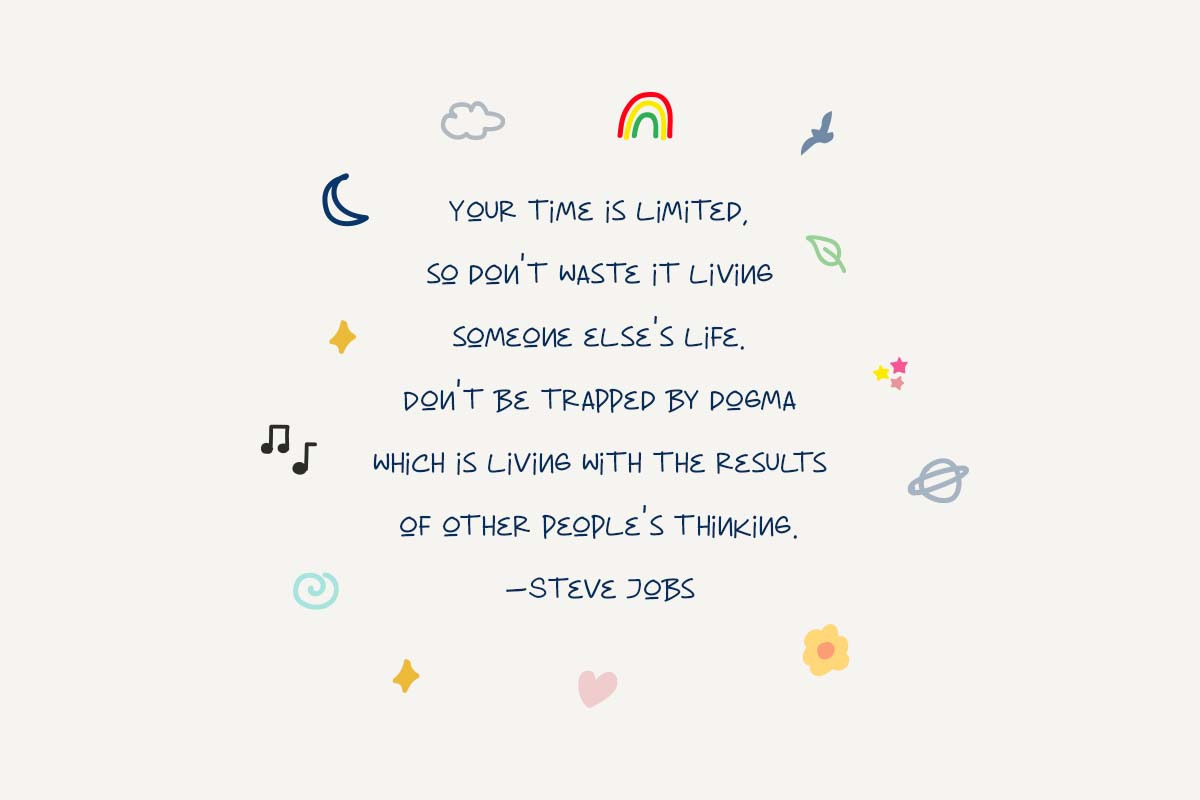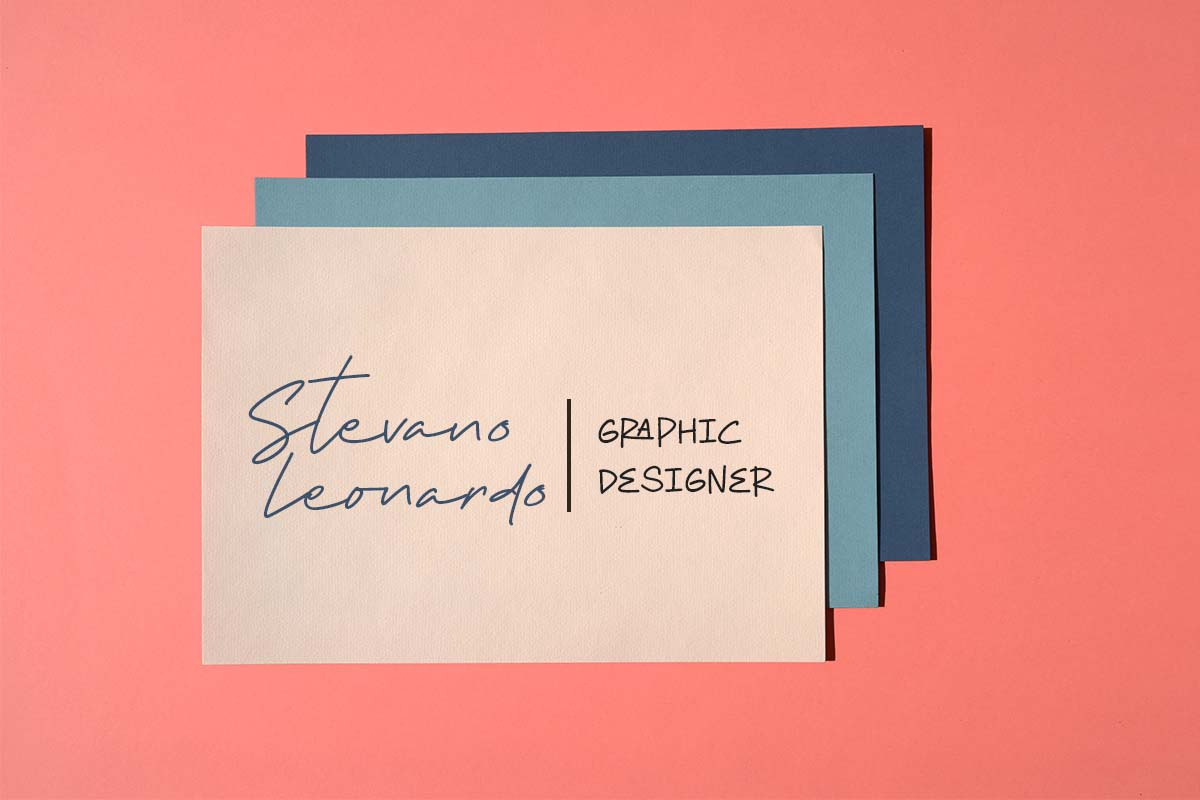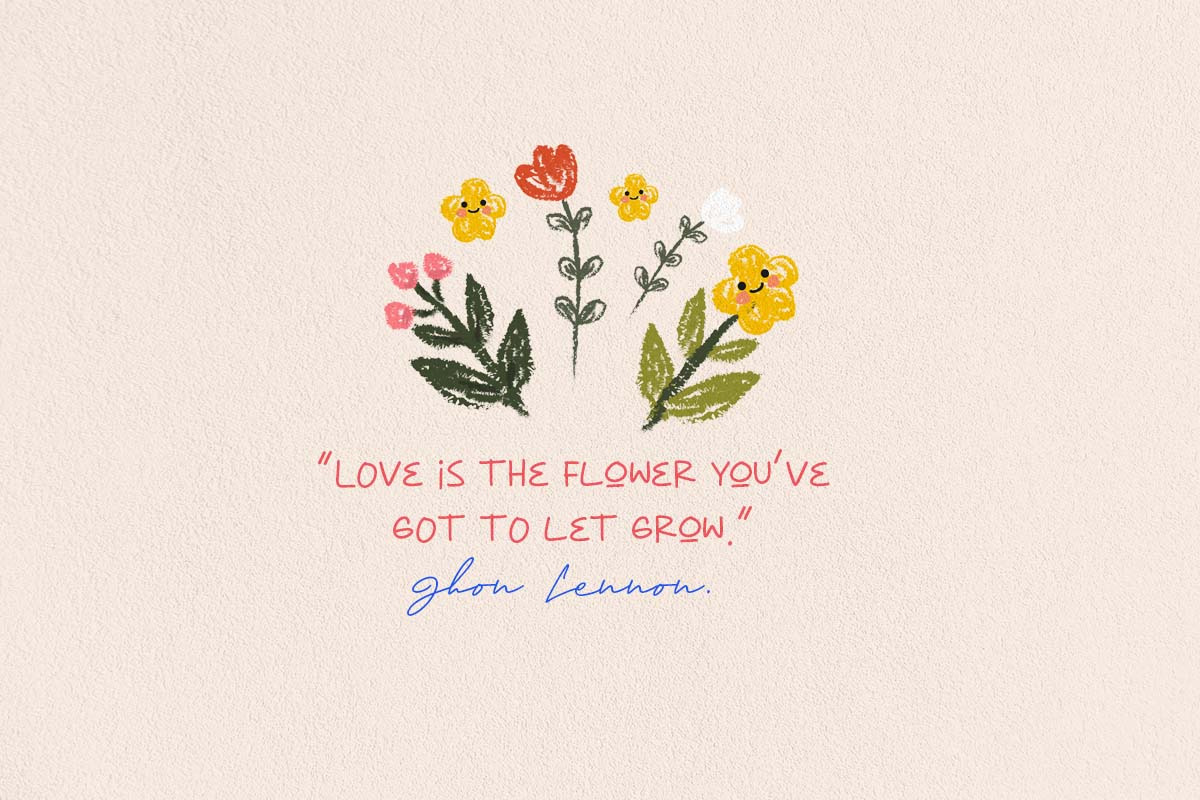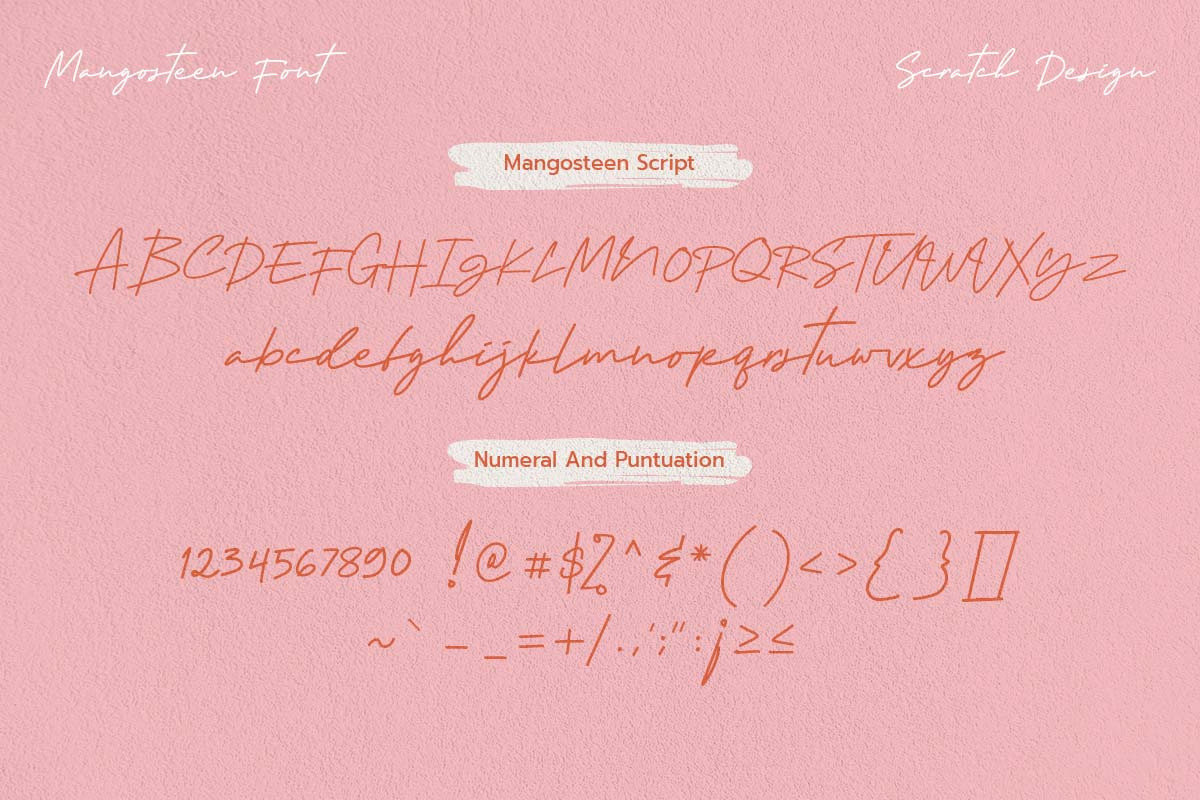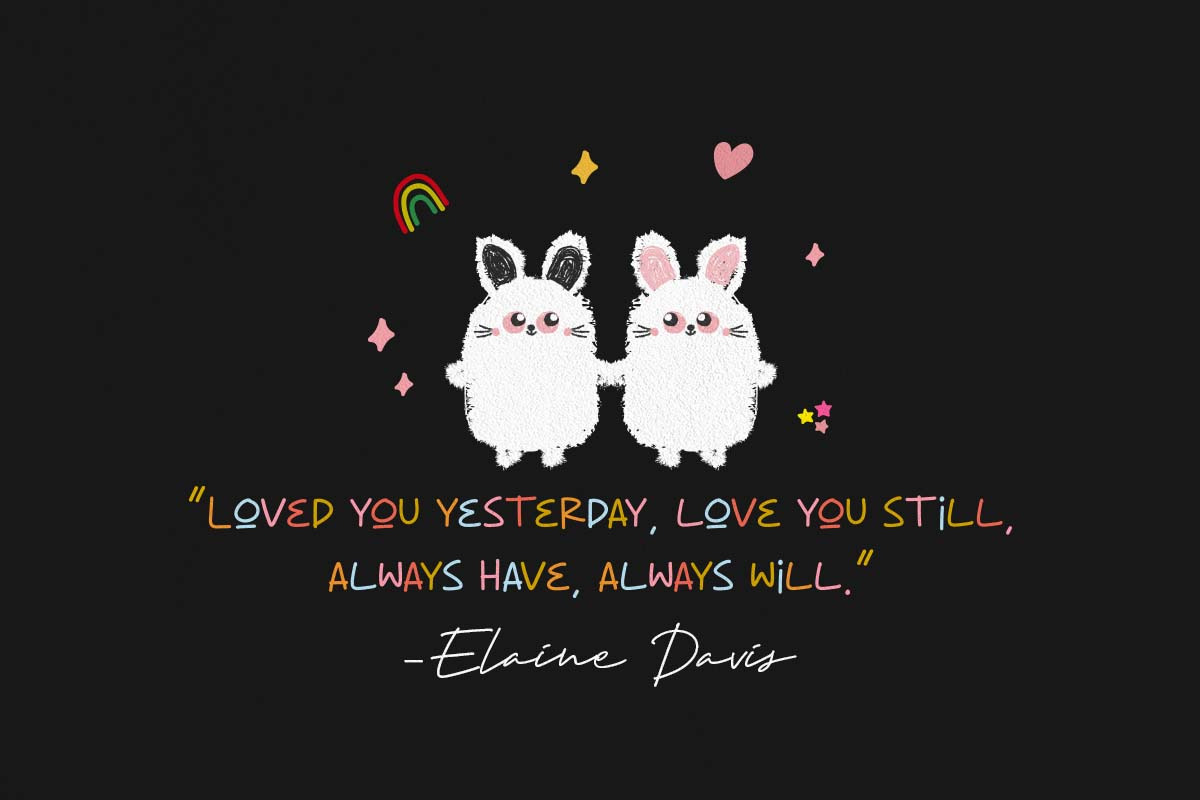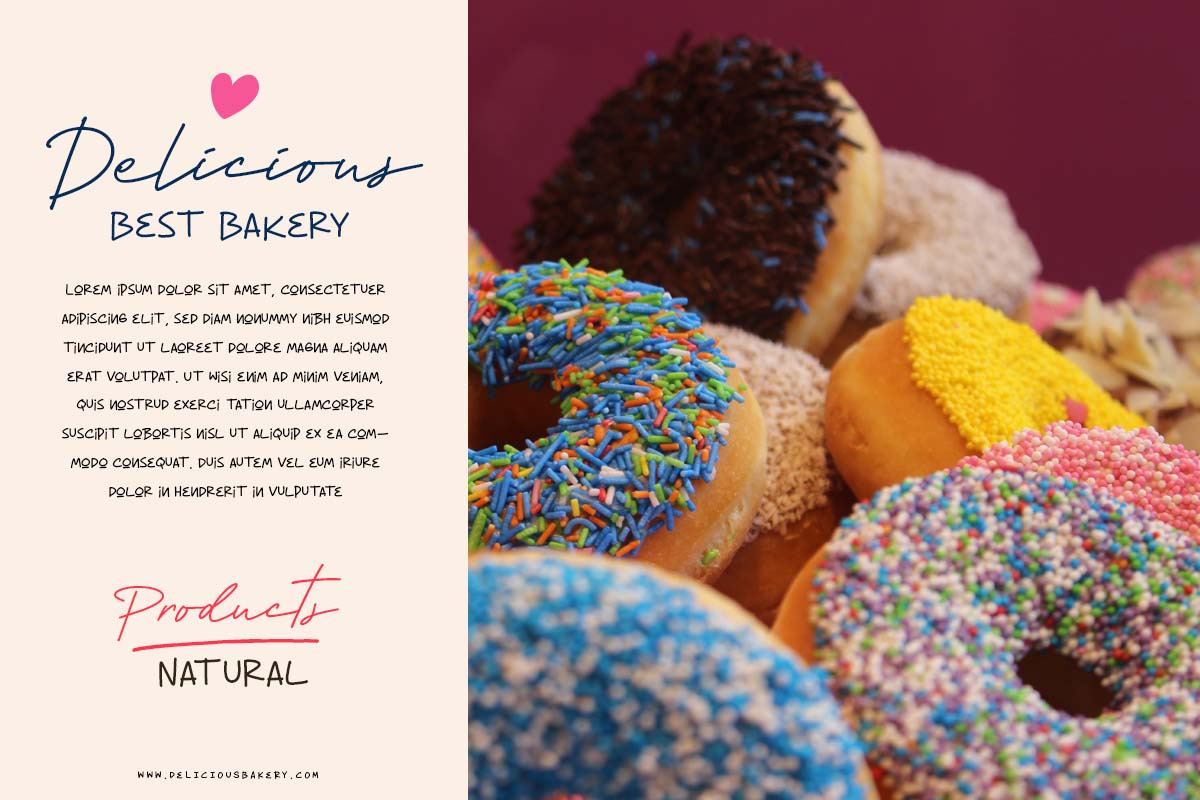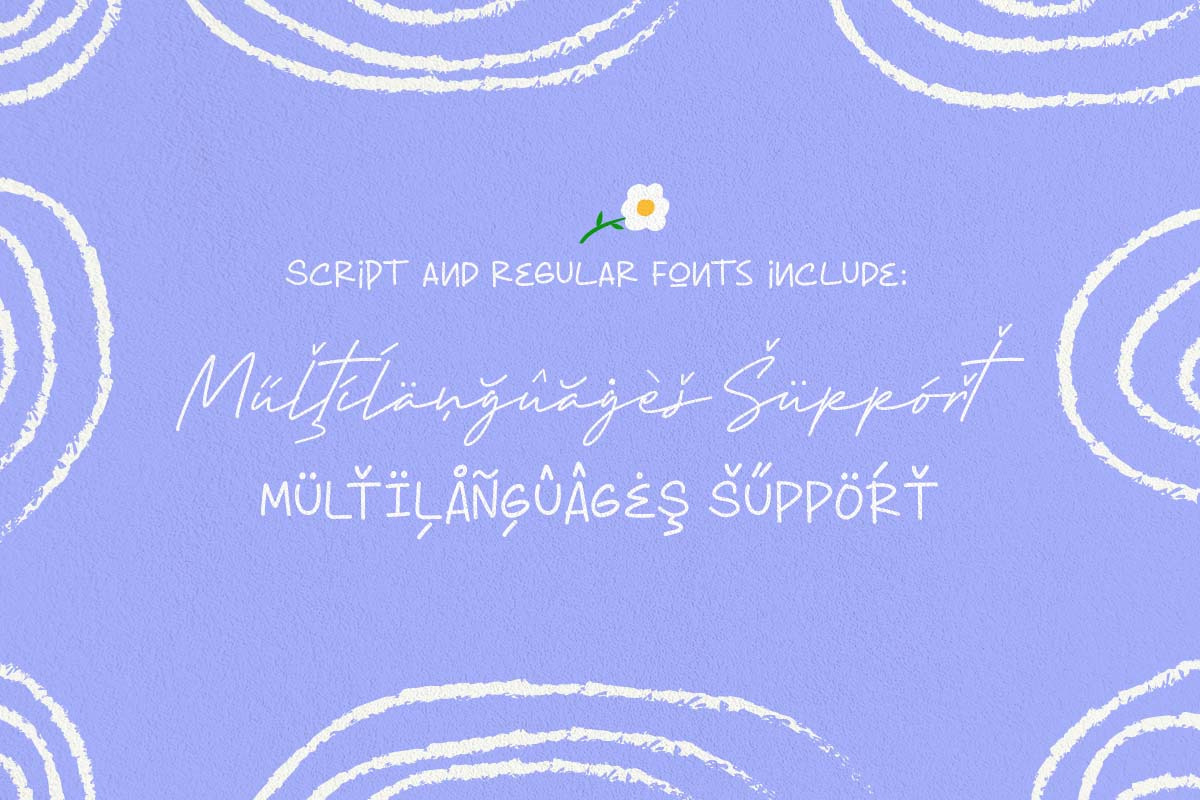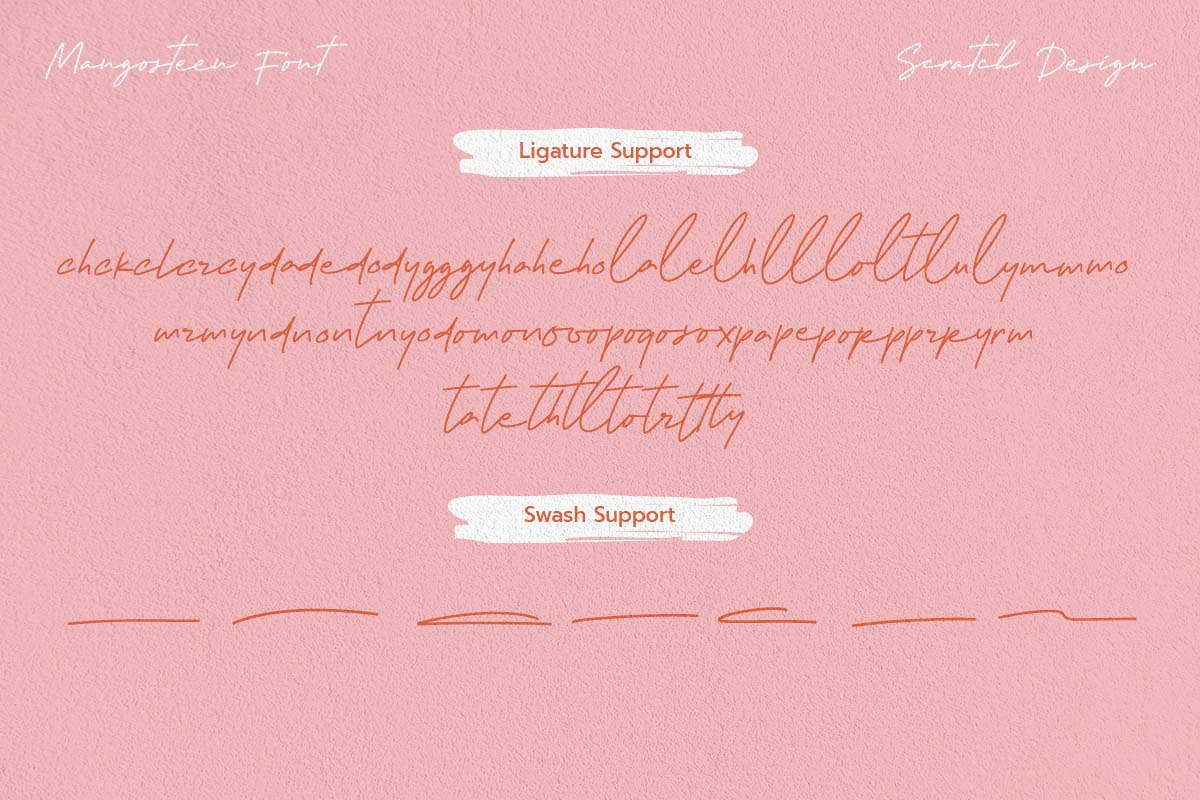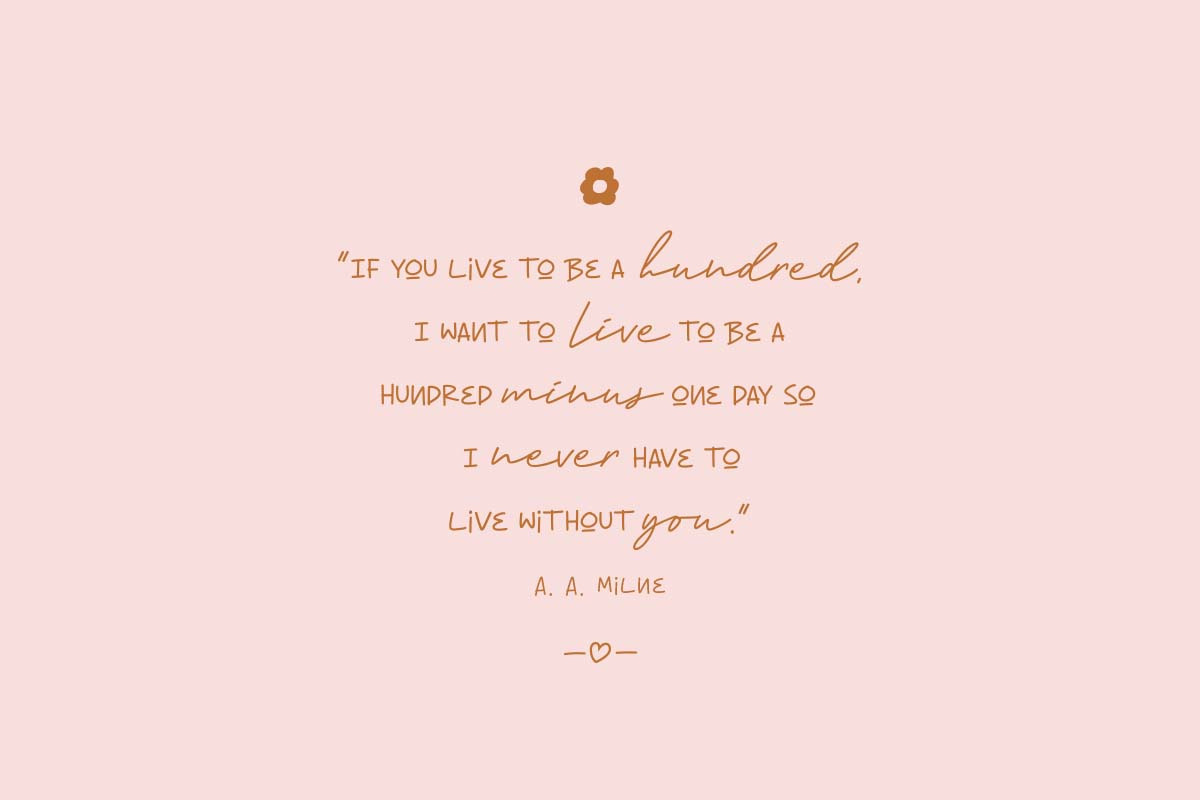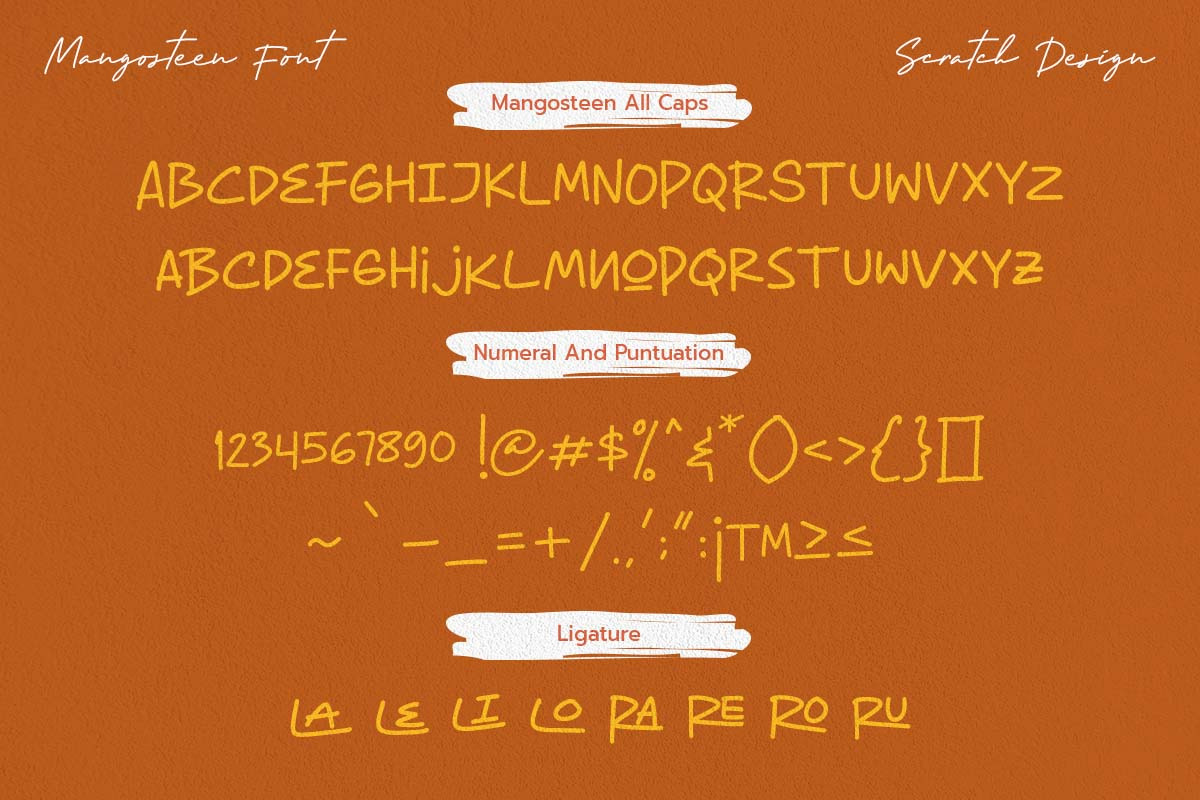
Mangosteen | Font Duo
Say hello to "Mangosteen Font Duo". Just like mangosteen, these handwriting duo fonts are also sweet, soothing and very suitable for use as a font in casual designs.
This font will be perfect for casual typeface in greeting cards, illustrations, quotes, branding, book covers, children's books, packaging, and more. Mangosteen Font Duo has a natural flow handwritten signature containing upper & lowercase characters, numerals, and punctuation. This font also has a ligature, stylistic alternate, swashes, and multi-language support
Both have some pretty ligatures built into their OpenType features - make sure you have your ligatures turned on to get their benefit.